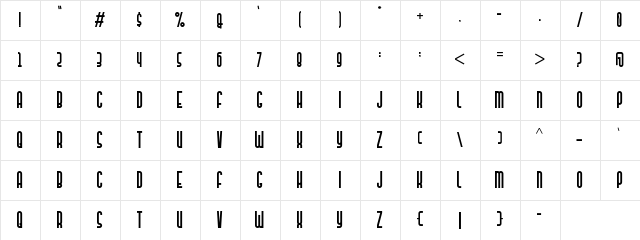
Mandan Regular
| Designer | Sabr Creative Studio |
Design Context for Mandan Typeface
Mandan offers clean, dependable letterforms without strong stylistic allegiance, making it a practical choice for designers who need flexibility.